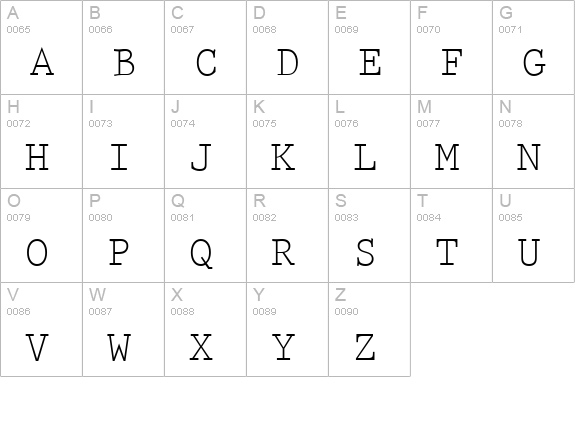
Prestige-Regular is the standard, neutral variant in the Prestige typeface family \xE2\x80\x94 well suited to general body text, paragraphs, and standard typographic work.
Prestige-Regular is a versatile and modern font that exudes sophistication and elegance. Its clean lines and timeless design make it a perfect choice for a wide range of projects, from branding to editorial design. The balanced proportions and legibility of Prestige-Regular ensure that your message is conveyed with clarity and style. The best part? Prestige-Regular is available for free download at FontsMarket.com. This means that you can easily access this high-quality font to elevate your design projects without any cost. Don't miss out on the opportunity to enhance your work with the refined aesthetic of Prestige-Regular. Download it today and see the difference it can make in your designs!